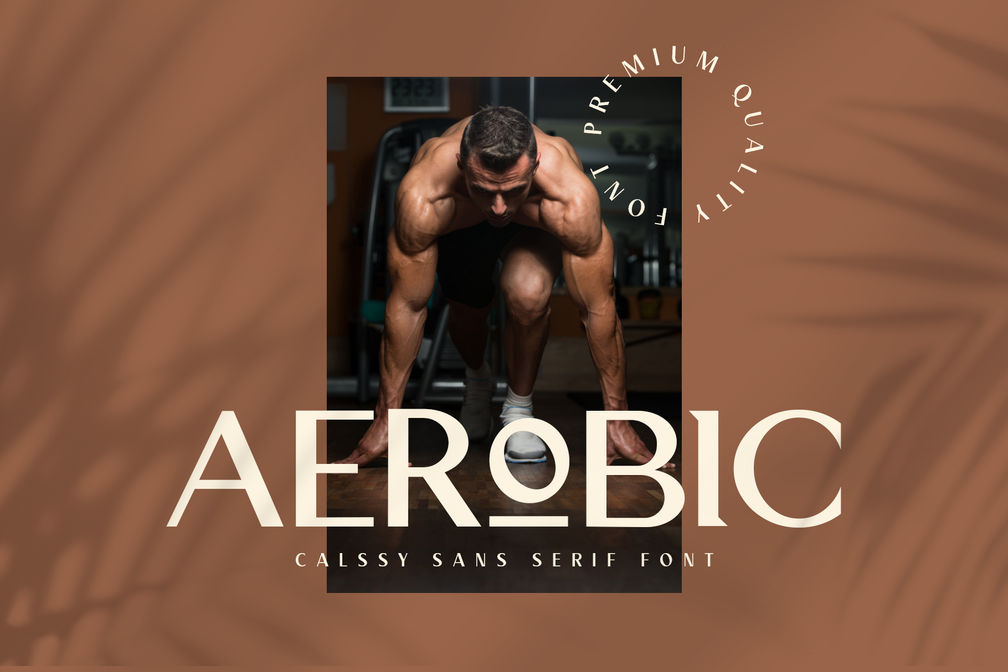
Aerobic
Aerobic is a modern and elegant sans serif font. It will add an incredibly unique and bold touch to your designs, so add it confidently and it will make them stand out!